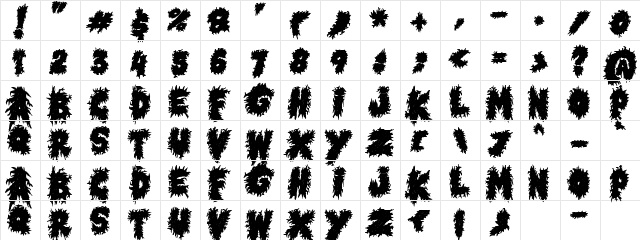
Horror Metal Regular
Design Context for Horror Metal Typeface
Horror Metal leans into the macabre with letterforms designed to disturb and intrigue in equal measure.
Ideal for Halloween projects, horror film titles, haunted house signage, and dark editorial design.
Font Pairing: Pair with a clean neutral sans-serif for body copy to let Horror Metal's character lead without overwhelming the composition.
Pro Tip: Horror Metal works best as a headline or focal element. Pair it against plain, neutral body text to amplify the contrast.